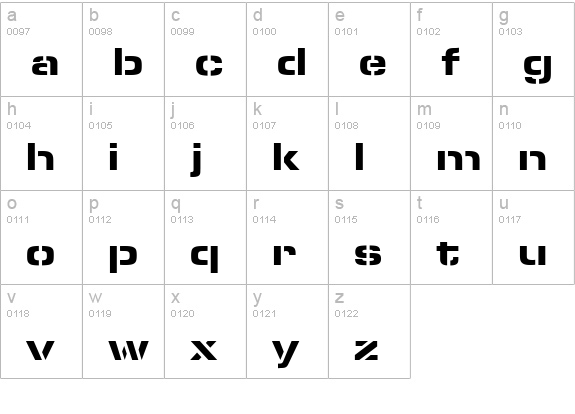
EurostileSteDBlaExt Font Details
The EurostileSteDBlaExt font is a modern and stylish typeface that exudes sophistication and professionalism. With its sleek design and bold letterforms, this font is perfect for a wide range of design projects, from branding to editorial design. The extended version of EurostileSteDBlaExt offers even more versatility and impact, making it a great choice for headlines and titles. What's even better is that EurostileSteDBlaExt is available for free download at FontsMarket.com. This means you can easily access this unique and eye-catching font to enhance your designs without having to spend a penny. Don't miss out on the opportunity to add EurostileSteDBlaExt to your font collection and elevate your projects with its distinctive aesthetic.